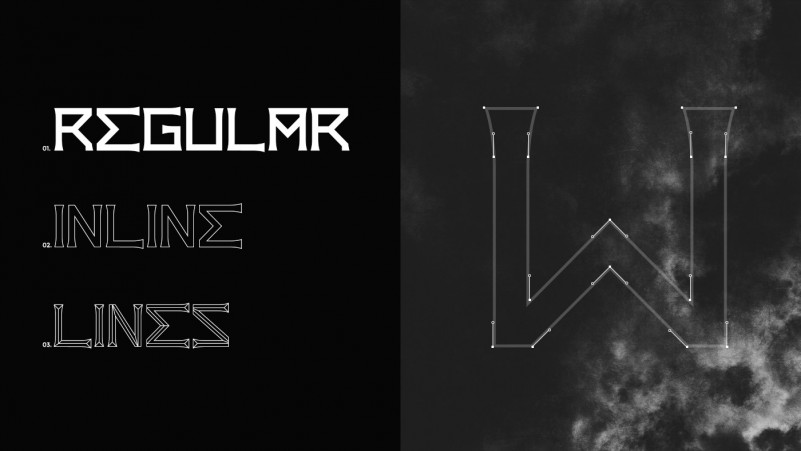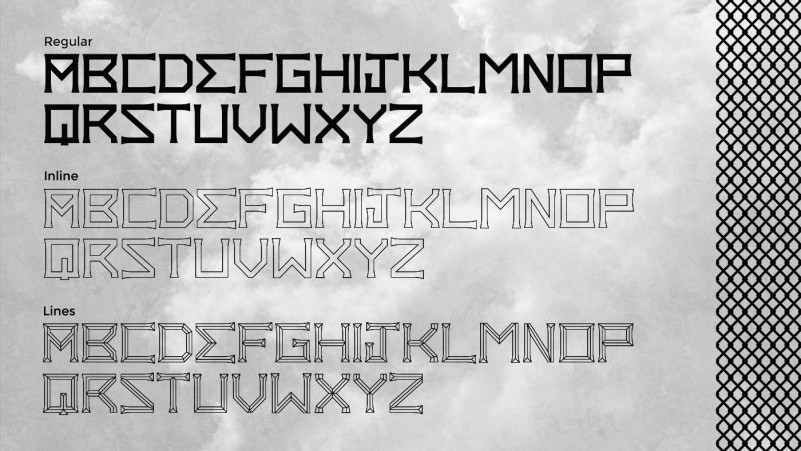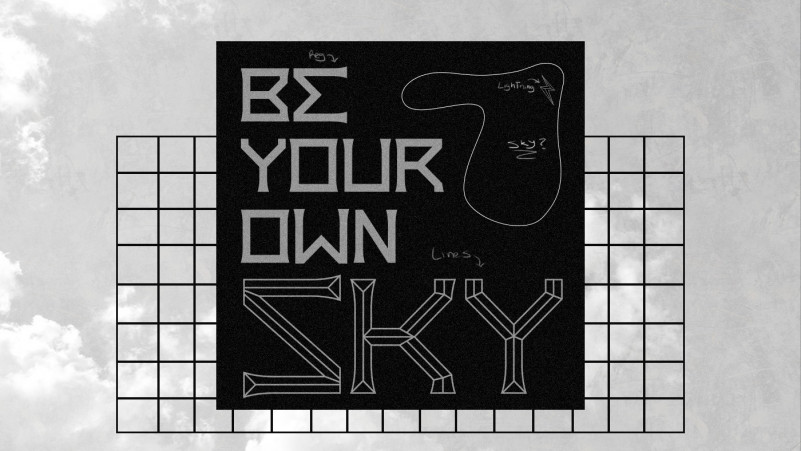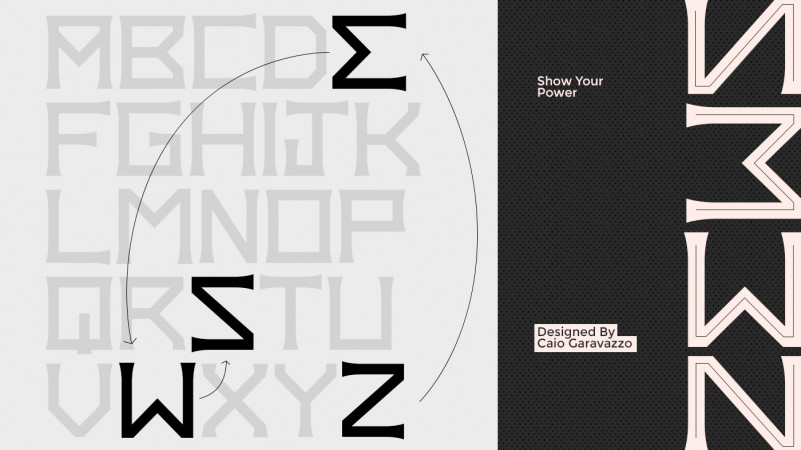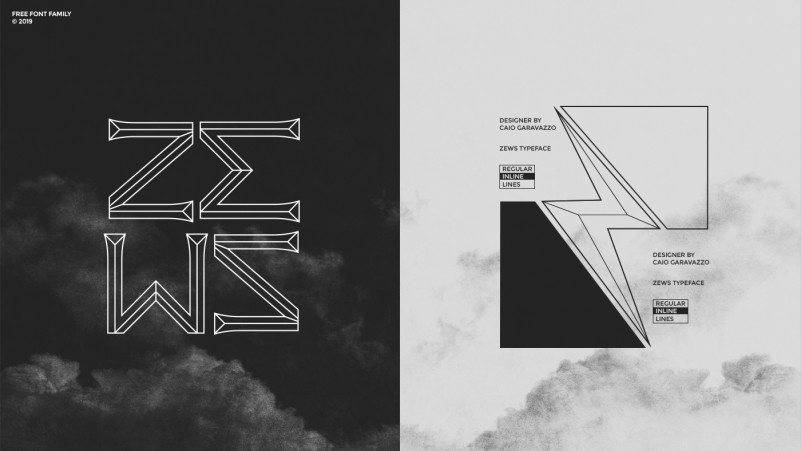
Zews Free Font Family
Zews || FREE FONT FAMILY
The Zews font family was created in 2019 to serve as study sources and to compose a personal project, thinking in the community that the typology was freely released for personal and commercial projects.